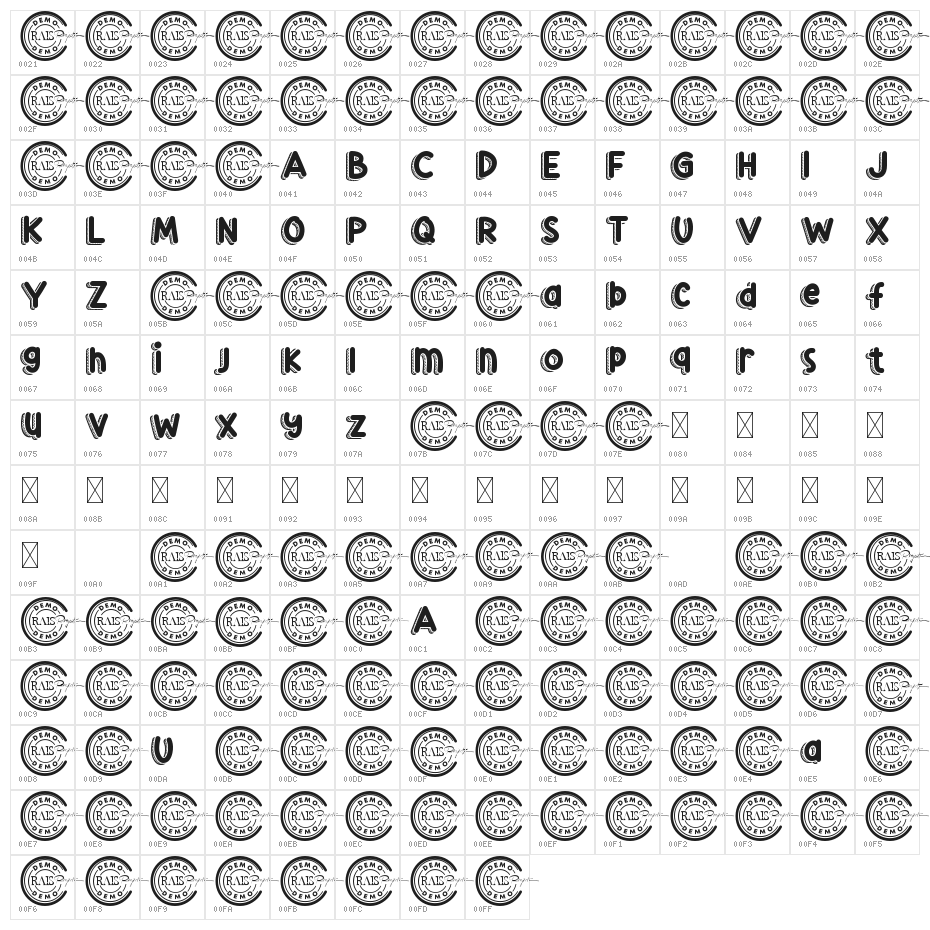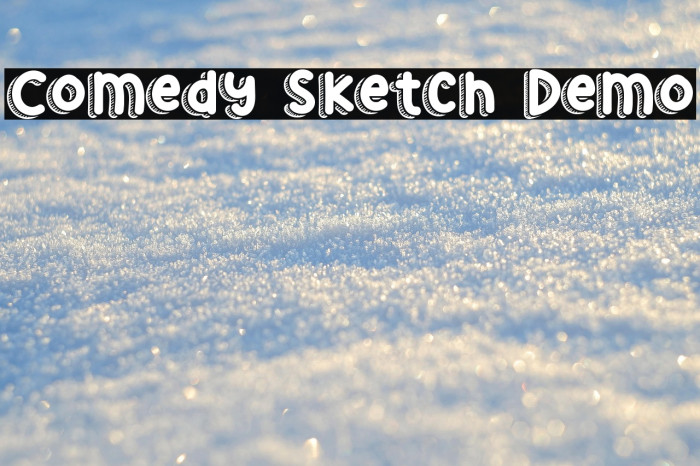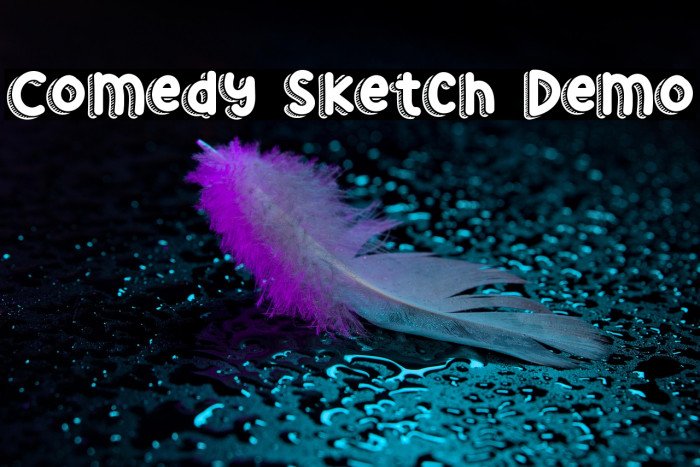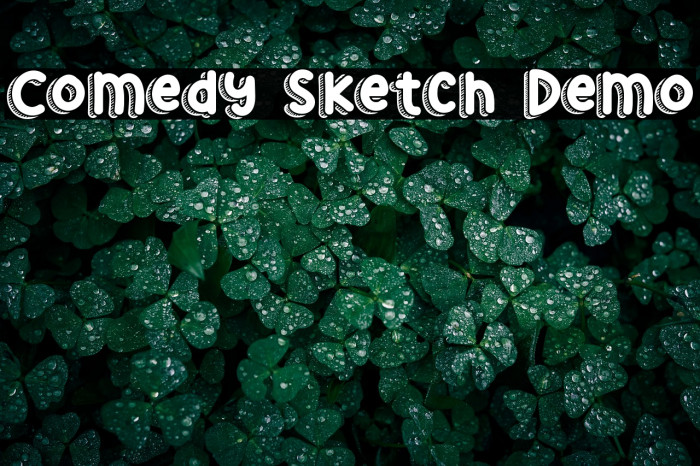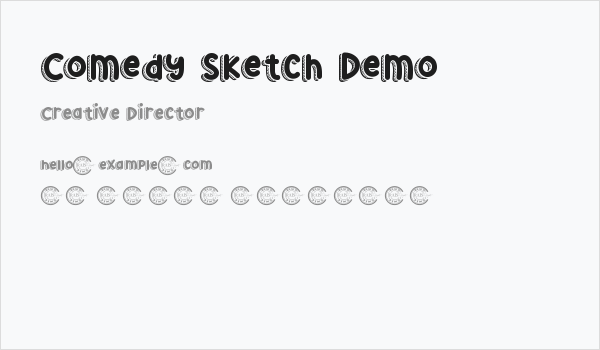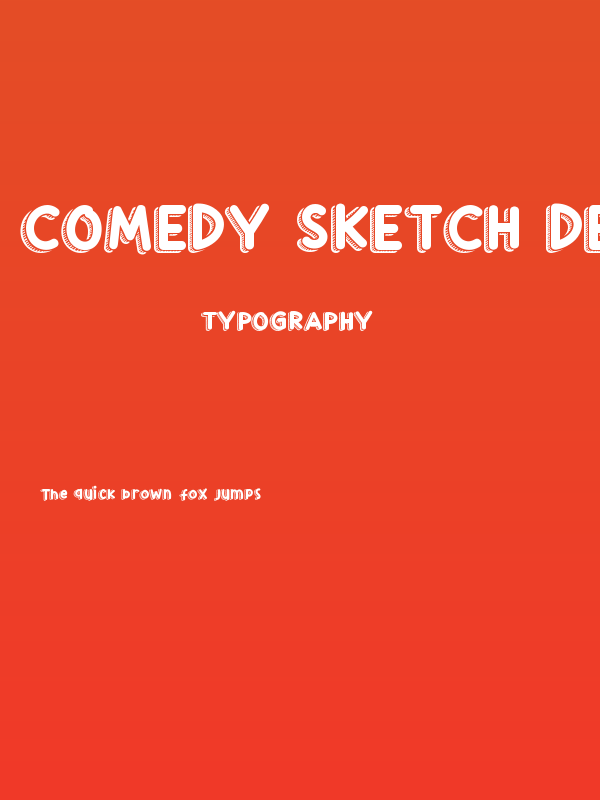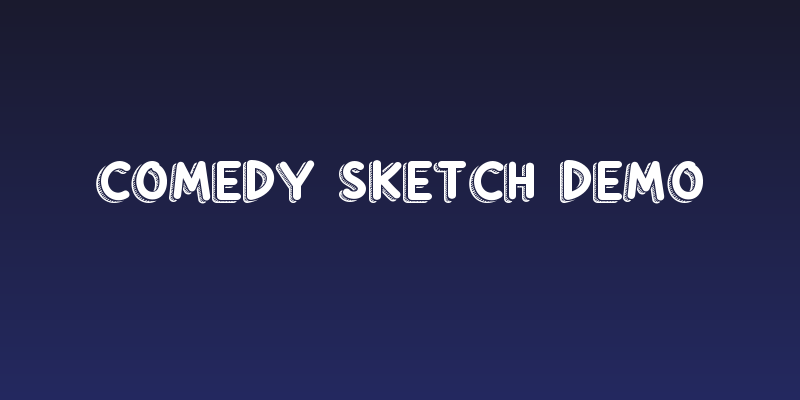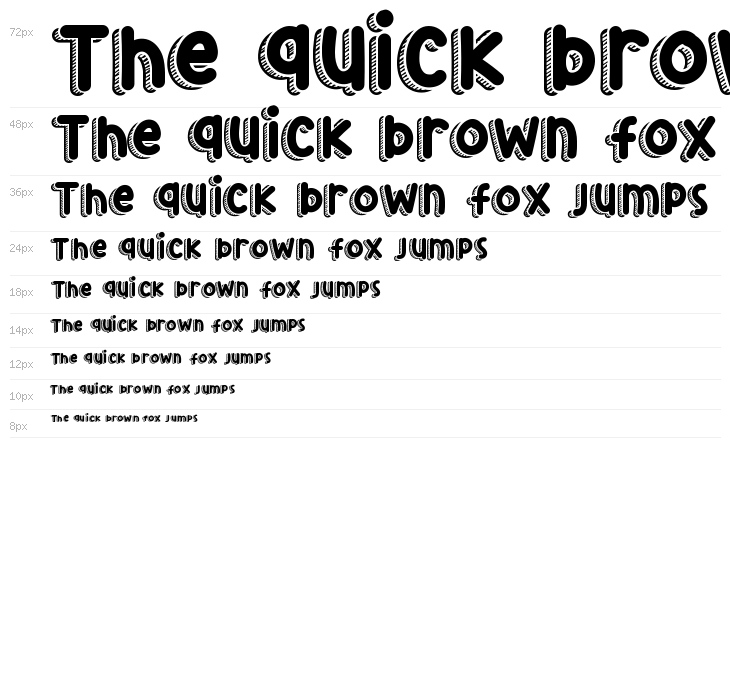
Comedy Sketch Demo Font
Comedy Sketch Demo Description
This playful and bold font features a unique sketch-like design with a hand-drawn appearance. Each character is outlined with a thick, black stroke, giving it a three-dimensional effect. The interior of the letters is filled with diagonal lines, adding texture and depth. The font maintains a consistent weight throughout, with rounded edges that contribute to its friendly and approachable style. The uppercase and lowercase letters are well-balanced, and the numbers and special characters are designed to match the overall aesthetic. This font is perfect for projects that require a fun and informal touch.
| Overall Style | Playful, Hand-drawn |
| Proposed Projects | Ideal for children's books, comic strips, playful branding, and creative posters. |